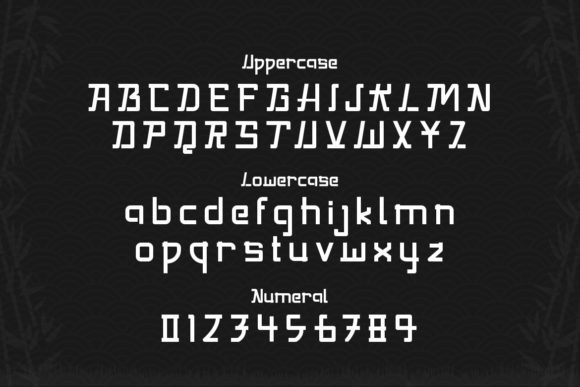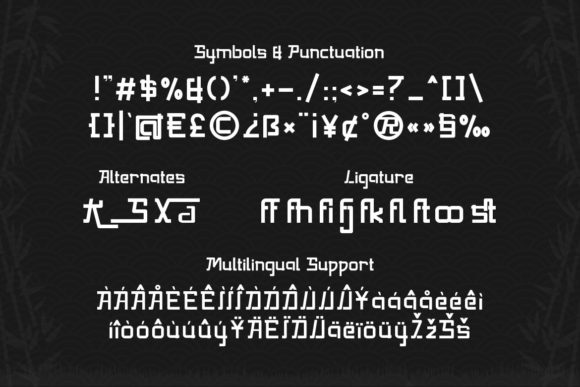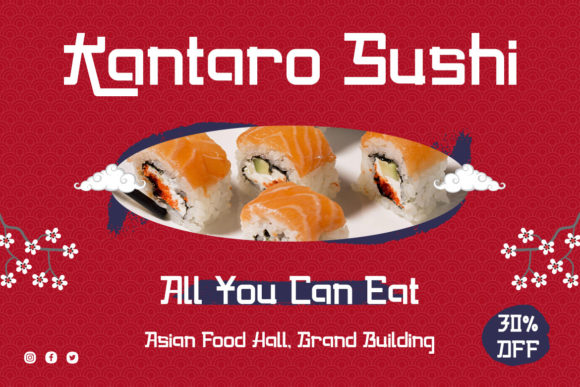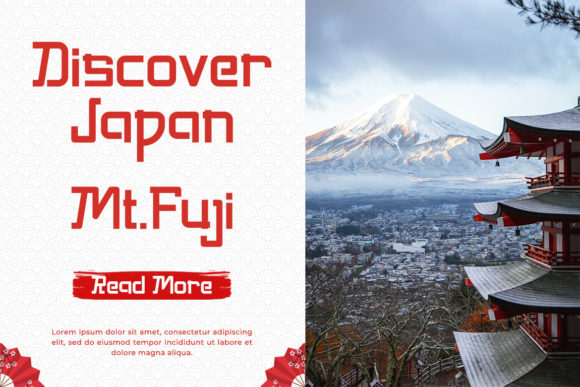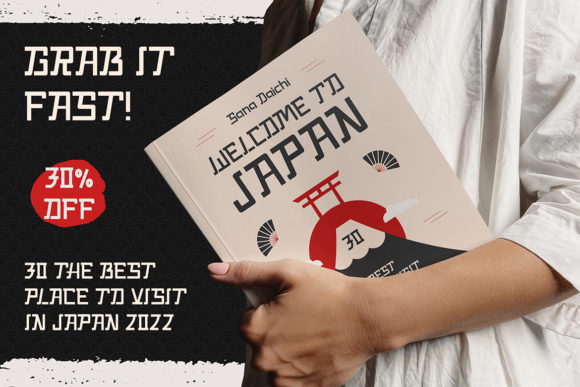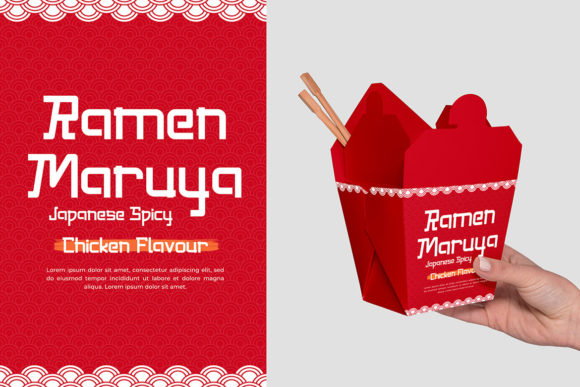
Introduction to Kurayami Font
Kurayami is an simple Japanese inspired display font.
It has a great readability and will add a striking touch to any design It will look awesome on restaurant brands and various other creations.
Key Features of Kurayami Font
Why Choose Kurayami Font?
Kurayami Font offers exceptional quality and versatility, making it a valuable addition to your design toolkit. Whether you’re creating for personal projects or commercial use, Kurayami Font delivers professional results.